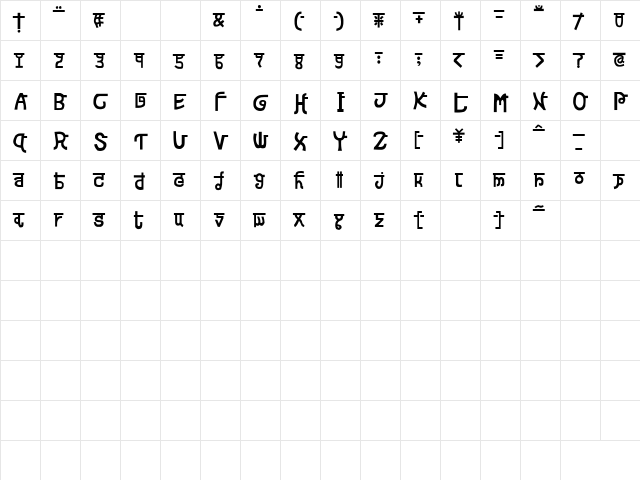
Devanagarish Regular
Design Context for Devanagarish Typeface
Devanagarish is a composed and adaptable typeface that performs quietly and consistently across a wide range of design contexts.